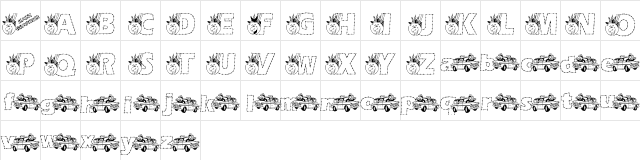
KG NYC Normal Font Preview
KG NYC Normal
Design Context for KG NYC Typeface
KG NYC is a composed and adaptable typeface that performs quietly and consistently across a wide range of design contexts.